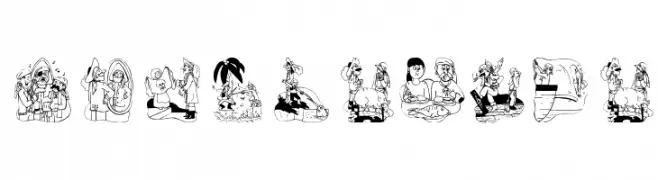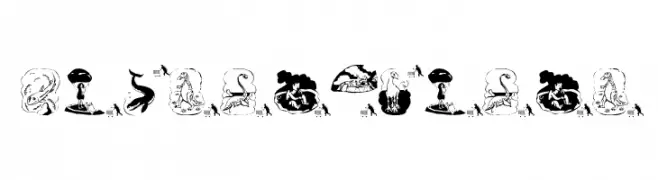
( Fonts by Divide By Zero! - fonts.tom7.com )
A playful, monster-themed decorative font with cartoonish eyes and teeth.
( Fonts by The Scriptorium - Dave Nalle )
A decorative font with swirling, vine-like extensions and high contrast, ideal for fantasy themes.
A decorative dingbat font with Christmas-themed icons in a circular design.
( Fonts by Levi Halmos )
A bold, jagged font with a distressed, horror-themed style.
( Fonts by www.houseoflime.com )
A decorative, dance-themed font with illustrated dancer figures as characters.
( Fonts by www.lifewithouttaffy.com )
A bold, snow-capped decorative font with a playful winter theme.
( Fonts by Jeff Levine. FREEWARE )
A decorative font with space-themed icons and symbols, perfect for creative projects.
( Fonts by Sinister Visions - Chad Savage - www.sinisterfonts.com )
A spooky, jagged font with a distressed, eerie style perfect for Halloween themes.
( Fonts by www.koenhachmang.com - Glitch )
A modern, pixelated font with bold, segmented characters ideal for tech and digital themes.
( Fonts by Alan Carr )
A festive collection of Christmas-themed dingbats featuring ornaments, gifts, and holiday symbols.
( Font by http://home.luna.nl/~xino/ )
Halloween-themed pictogram font with spooky illustrations.
( Fonts by www.fontalicious.com )
A playful, decorative font with a vintage vacation theme and circular borders.
Ornate fantasy-themed pictorial font with mythical creatures.
Fantasy-themed display font with mythical creature silhouettes.
A dripping, eerie font perfect for horror-themed designs.
A whimsical set of holiday-themed illustrations with a playful, hand-drawn style.